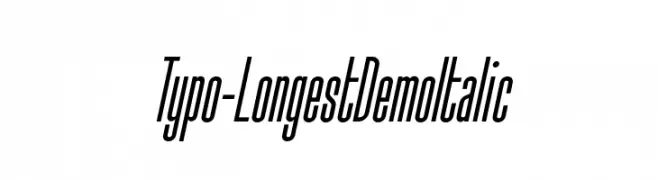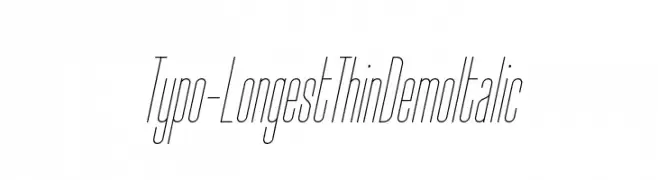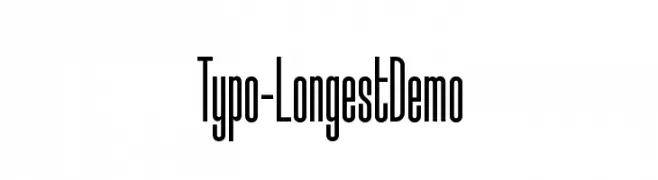
A sleek, italic font with elongated, narrow characters and a modern style.
A sleek, elongated, and italic font with thin strokes and a modern aesthetic.
A tall, narrow font with elongated letterforms and a modern, elegant style.
A bold, distressed font with a rugged, vintage aesthetic.
A bold, geometric font with a strong, industrial aesthetic.
A bold, dynamic script font with flowing, cursive letters and strong visual impact.
A bold, smooth script font with flowing curves and strong strokes.
A bold, geometric font with strong lines and a modern aesthetic.
A bold, geometric font with strong, angular lines and a modern aesthetic.
A bold, decorative font featuring unique emblematic designs within each character.
A bold, distressed font with a rugged, vintage style.
A bold, geometric font with an industrial and modern aesthetic.
A modern, ultra-condensed font with elongated, sleek characters.
A bold, jagged font with a distressed, energetic style.
A bold, geometric font with sharp, angular lines.
A bold, angular font with sharp edges and a modern, geometric style.
A bold, angular font with a strong, modern aesthetic.
A bold, italic font with a modern and sporty style.
A bold, industrial font with a rugged, distressed texture.
A bold, three-dimensional font with a strong shadow effect and geometric style.
A playful, handwritten font with tall, narrow letters and a dynamic style.
A bold, condensed font with a modern and impactful style.
A bold, dynamic brush script font with expressive strokes.
A modern, narrow font with elongated characters and a sleek, sophisticated style.
A bold, playful font with rounded edges and unique curves.
A bold, modern sans-serif font with strong, uniform strokes and tight spacing.
A bold, geometric font with sharp angles and a modern industrial feel.
A bold, angular font with a geometric style, perfect for striking headlines.
( Fonts by Letterhend Studio - Hendry Juanda - Personal-use only. For commercial use please contact owner. )
A bold, rough-textured font with a hand-drawn, rustic appearance.
A bold and dynamic serif font with a modern twist, perfect for impactful designs.
A bold, rounded font with a playful and modern style.
A playful, rounded font with bold, uniform strokes and smooth curves.